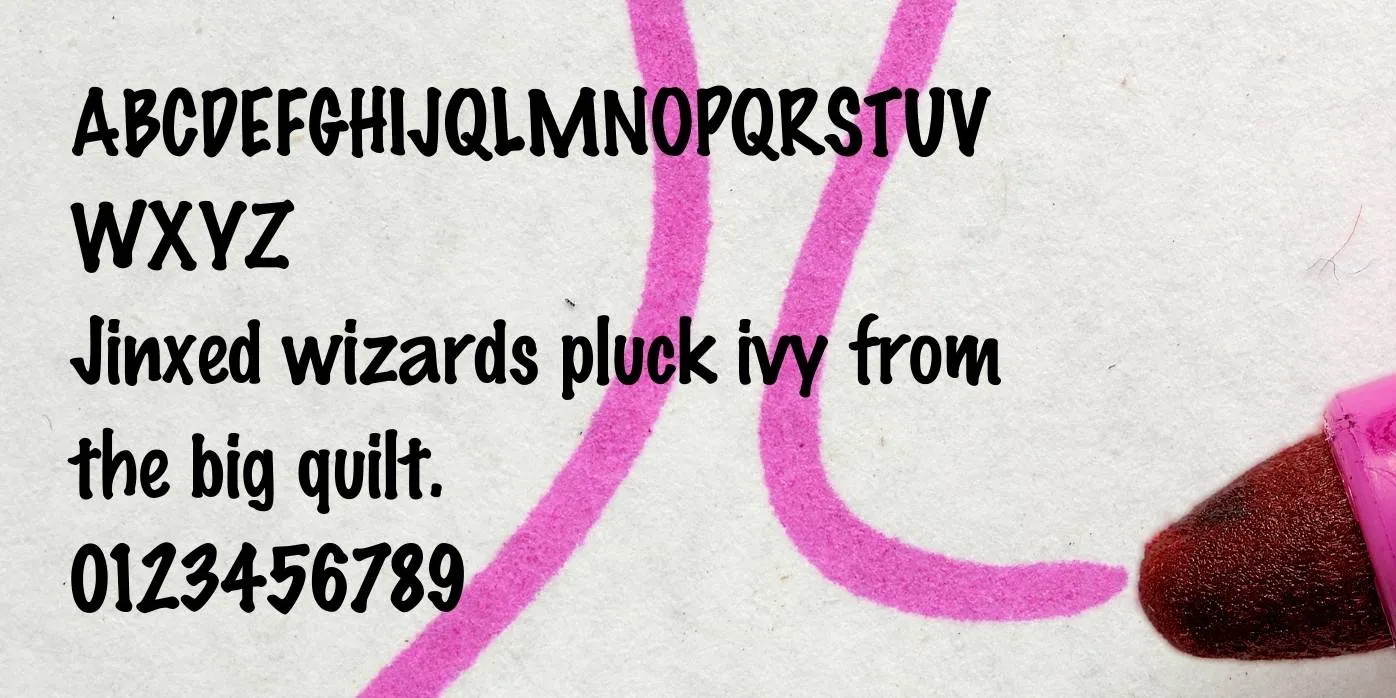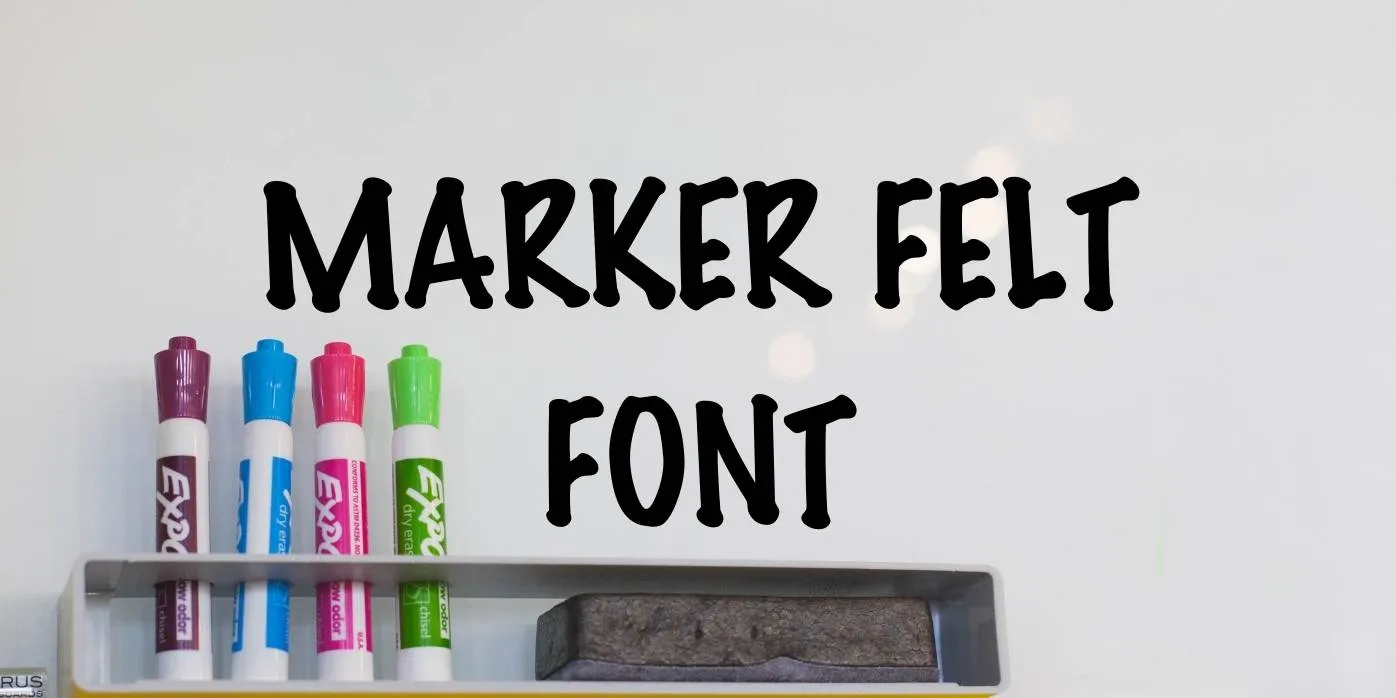
Marker Felt Font
Introducing a very beautiful with cool style typeface that is known as Marker Felt Font. This alluring font belongs to a Handwritten typeface family. The designer of this typeface is Pat Snyder and it is very bewitching for your minimal designs and logos. There are many designers in this age who are working on inventing new fonts on a daily basis.
This typeface is also a fascinating craft of pat Snyder. It has TTF features and is free for Personal use only. We also provide many other handwritten typefaces like Coet Font. Its TrueType Outlines font has a nice texture style and its characters contain Uppercase and Lowercase letters, Numbers and Numerals, Basic punctuation, Glyphs, and special symbols.